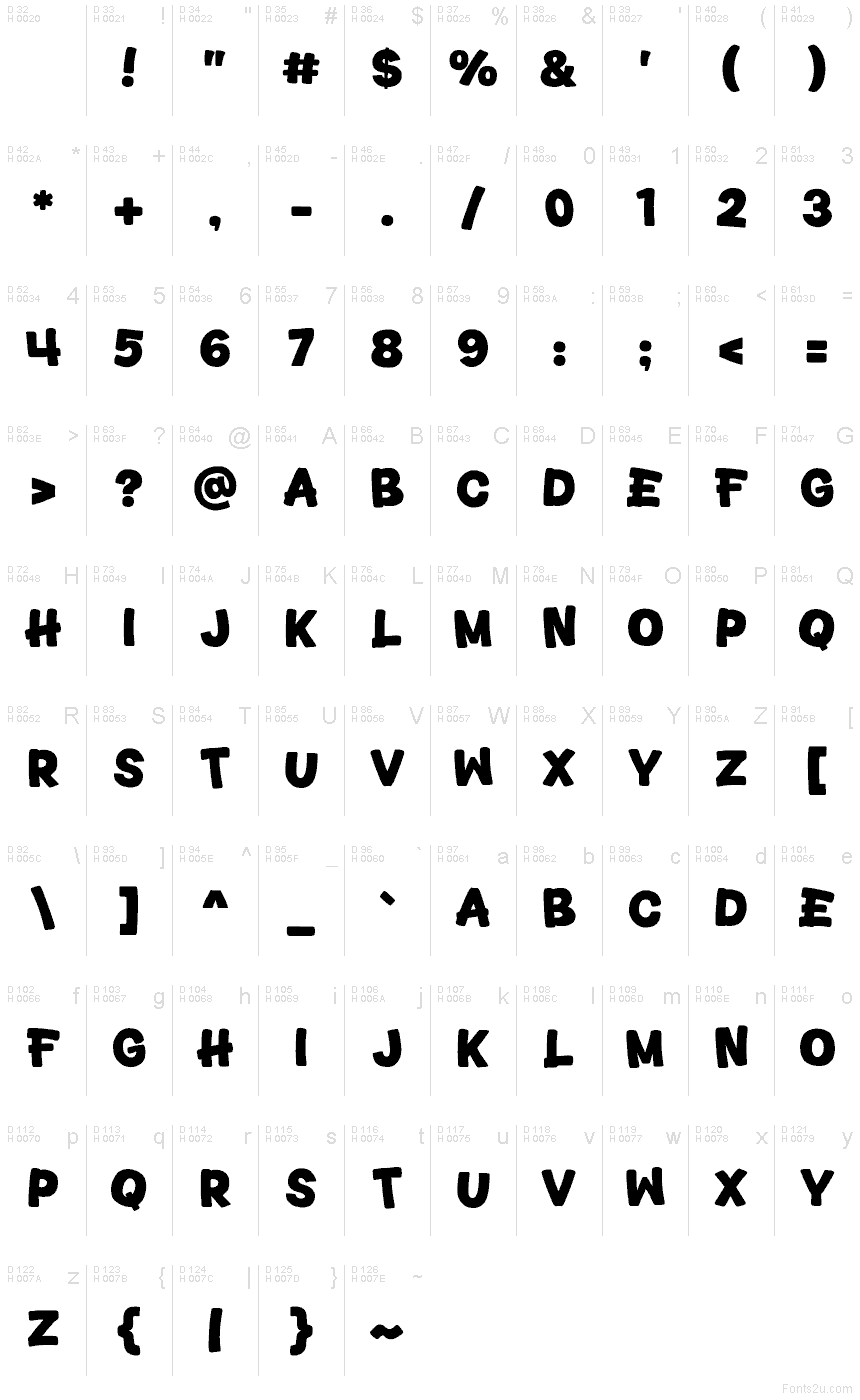
Tendang
Tendang font is Khurasan’s fun bold cartoon display font that has a contemporary grungy design for prints. The block lettering appears slightly irregular with shadow hatching in a hand-drawn style. The typeface offers free characters that are casual and expressive.